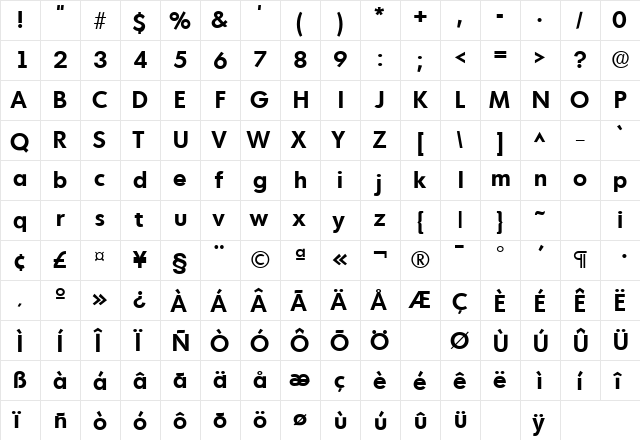
MontrealLH Bold Font Preview
MontrealLH Bold
MontrealLH Bold Font Details
Design Context for MontrealLH Typeface
MontrealLH takes a measured approach to typography — its balanced proportions and neutral character make it a reliable workhorse for both digital and print work. The heavy weight commands attention and anchors typographic hierarchies.
Pro Tip: Pair MontrealLH with a font of contrasting weight or personality to build a more expressive typographic hierarchy.